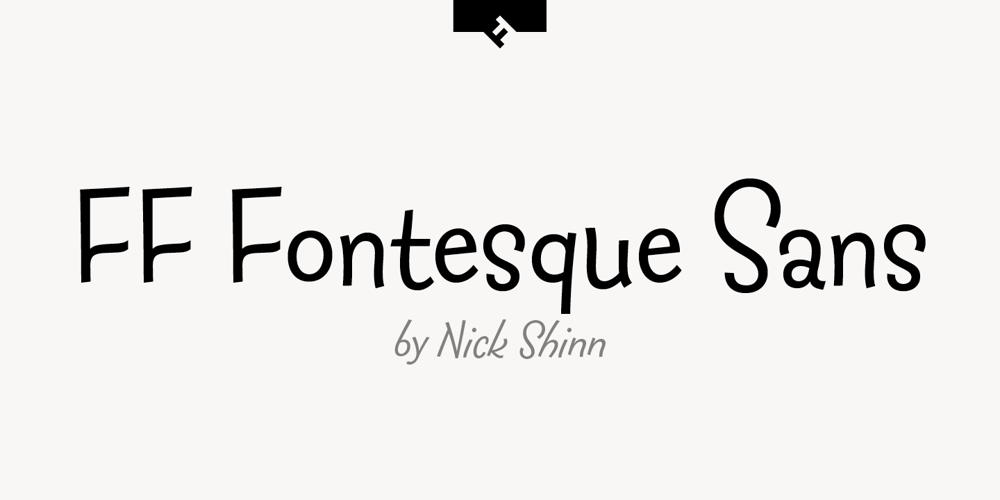
FF Fontesque Sans Font Family was designed by Nick Shinn and published by FontFont. FF Fontesque Sans contains 8 styles and family package options. Canadian type designer Nick Shinn created this display, script, and sans FontFont in 2001. The family has 8 weights, ranging from Ultra Light to Extra Bold (including italics) and is ideally suited for advertising and packaging, festive occasions, film and tv, music and nightlife as well as software and gaming. FF Fontesque Sans provides advanced typographical support with features such as ligatures, alternate characters, case-sensitive forms, and stylistic alternates. It comes with a complete range of figure set options – oldstyle and lining figures, each in tabular and proportional widths. This FontFont is a member of the FF Fontesque super family, which also includes FF Fontesque.